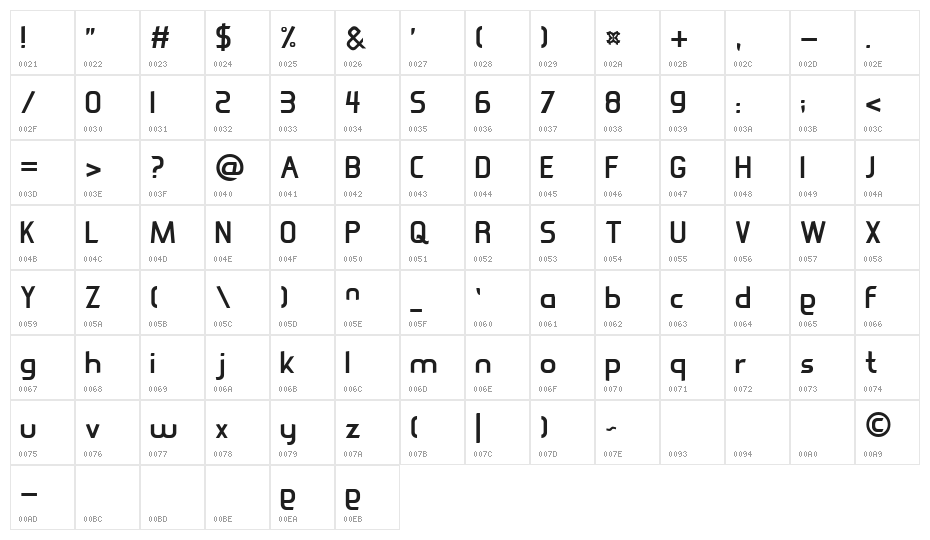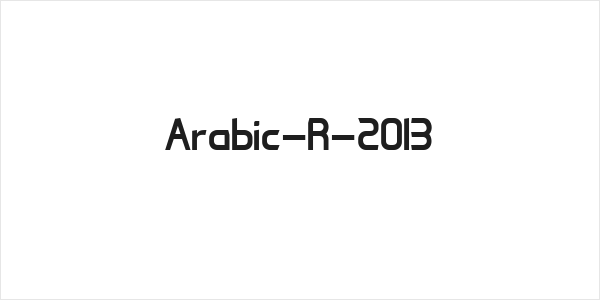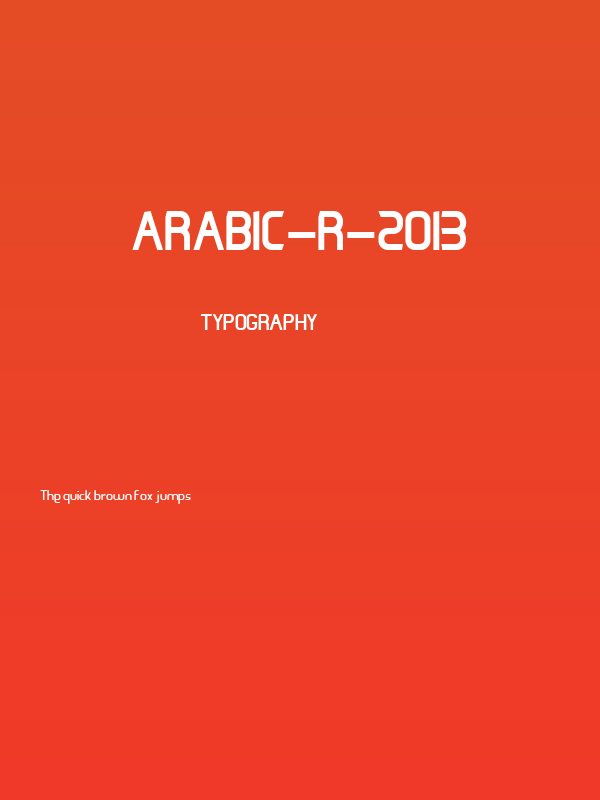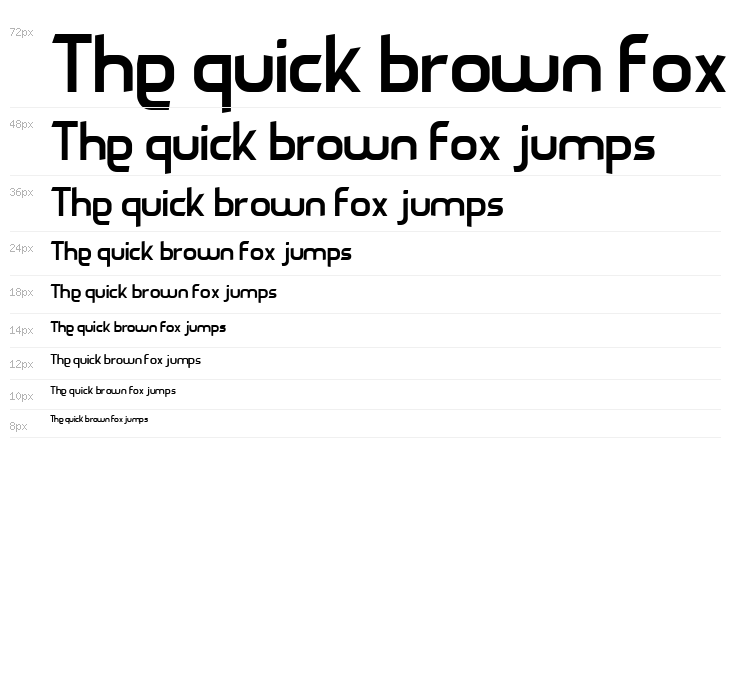
Arabic-R-2013 Font
Arabic-R-2013 Description
This font features a modern and geometric design with clean, straight lines and slightly rounded corners, giving it a contemporary and approachable feel. The uppercase letters are bold and assertive, while the lowercase letters maintain a consistent style with a slightly softer appearance. The numerals are clear and easy to read, matching the overall aesthetic of the alphabet. Special characters are designed with the same attention to detail, ensuring uniformity across all glyphs. The font's structure is balanced, making it suitable for various design applications.
| Use Case | Headlines, Logos, Digital Interfaces |
| Proposed Projects | Ideal for branding, advertising, digital interfaces, and modern print media. |